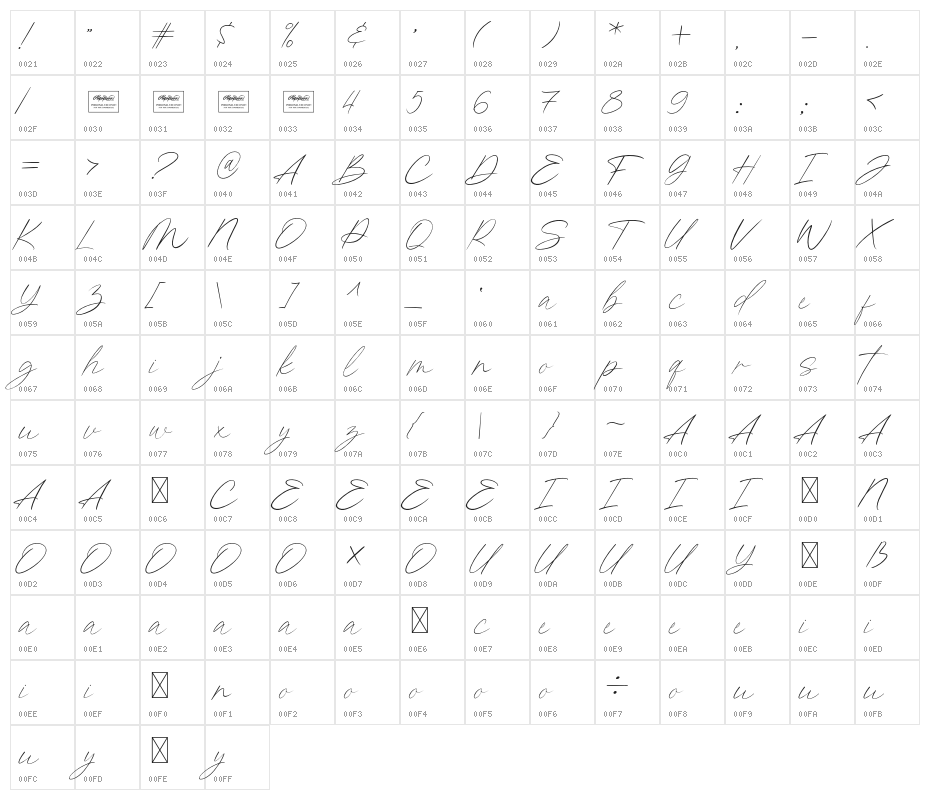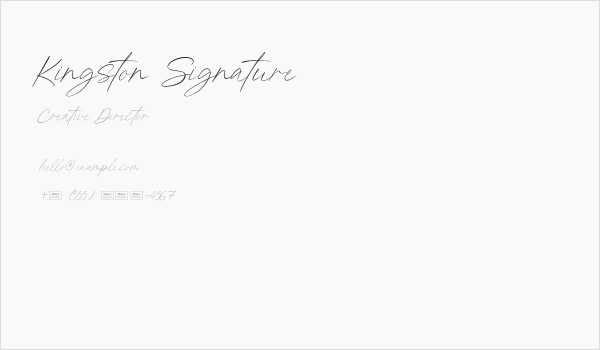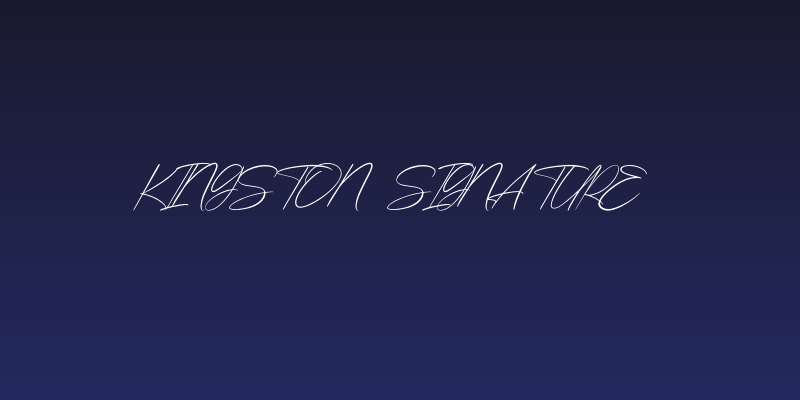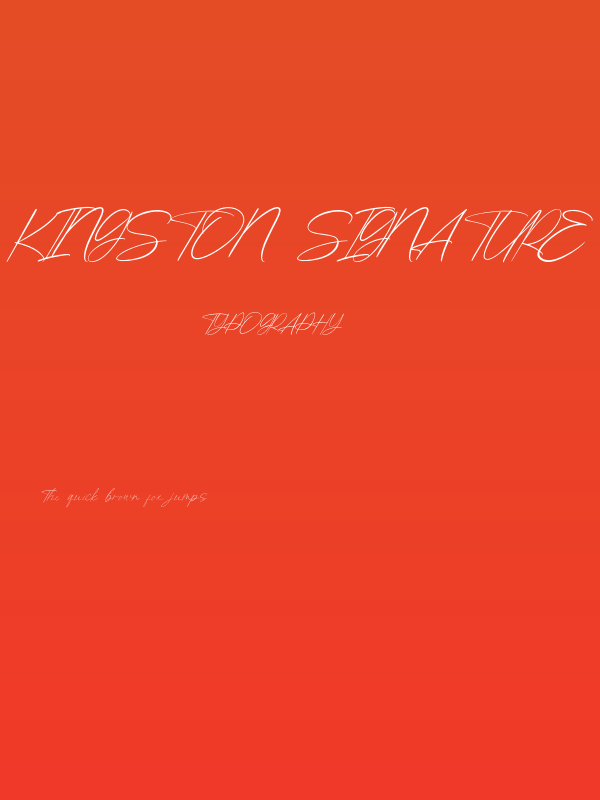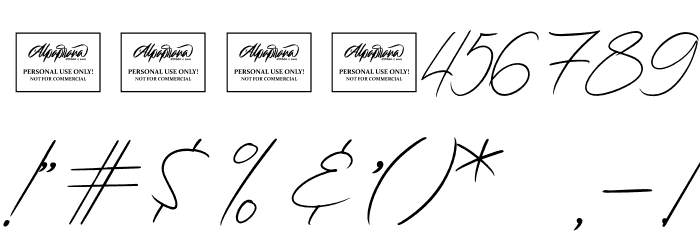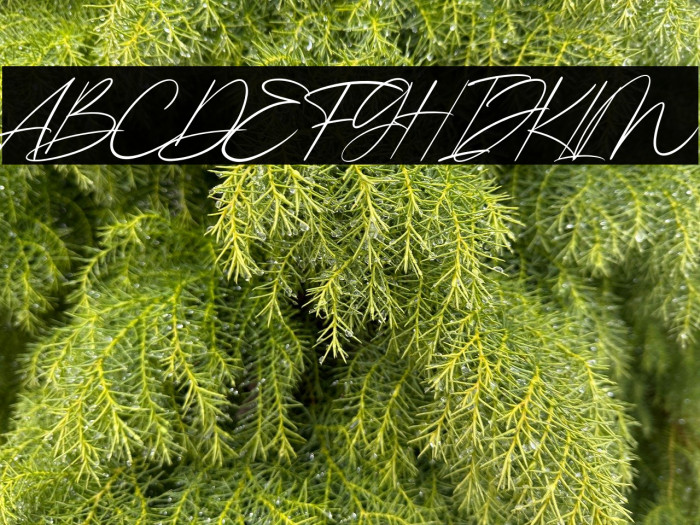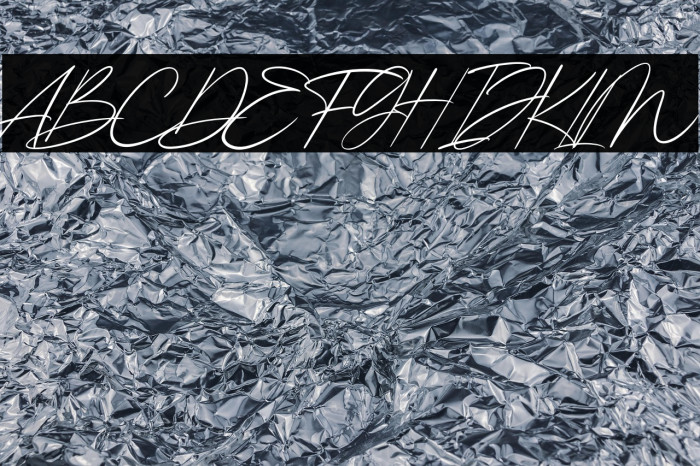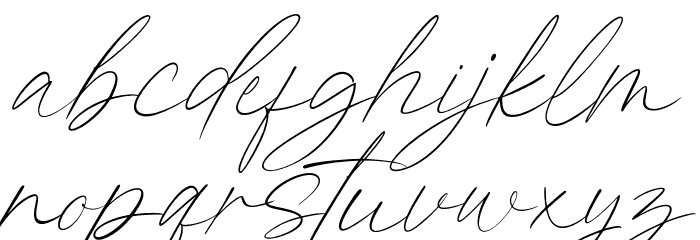
Kingston Signature Font
Kingston Signature Description
This elegant script font features a flowing, cursive style with smooth, continuous strokes that mimic the fluidity of handwriting. The characters are connected, creating a seamless and sophisticated appearance. The uppercase letters are bold and prominent, while the lowercase letters maintain a delicate and graceful form. The numerals and special characters are designed to complement the overall aesthetic, ensuring consistency across all elements. This font exudes a sense of elegance and refinement, making it ideal for projects that require a personal touch.